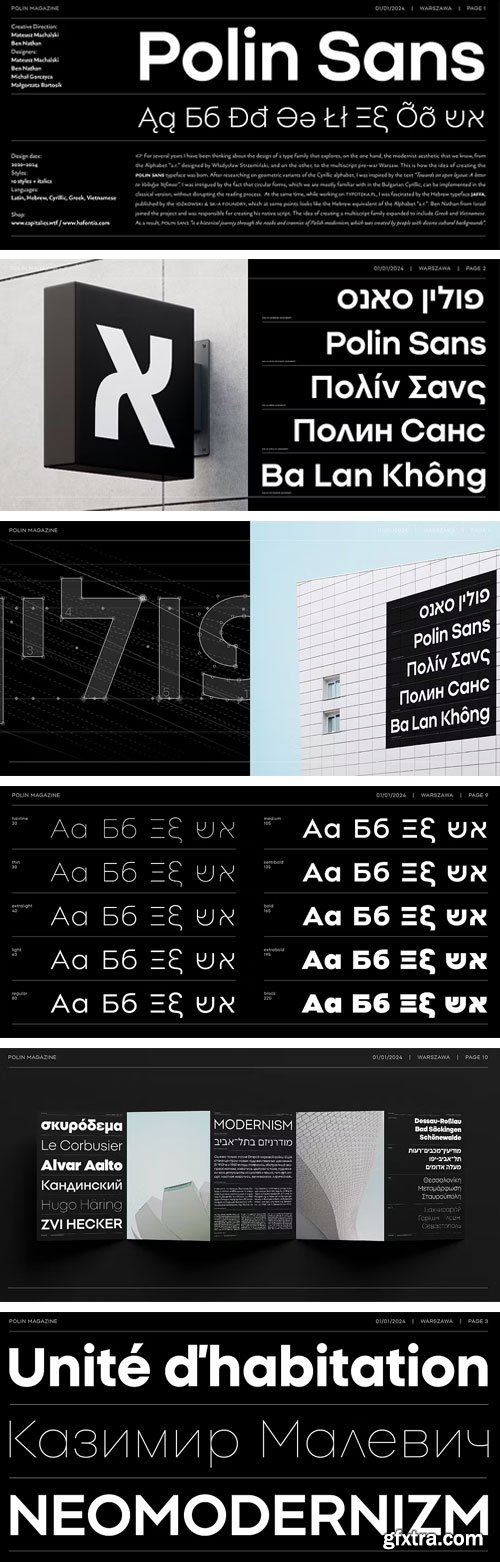
For several years I have been thinking about the design of a type family that explores, on the one hand, the modernist aesthetic that we know, from the Alphabet "a.r." designed by Władysław Strzemiński, and on the other, to the multiscript pre-war Warsaw. This is how the idea of creating the Polin Sans typeface was born. After researching on geometric variants of the Cyrillic alphabet, I was inspired by the text "Towards an open layout: A letter to Volodya Yefimov". I was intrigued by the fact that circular forms, which we are mostly familiar with in the Bulgarian Cyrillic, can be implemented in the classical version, without disrupting the reading process.